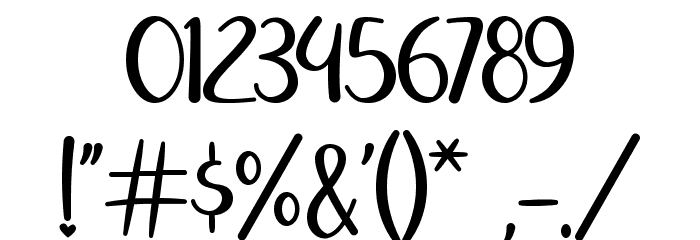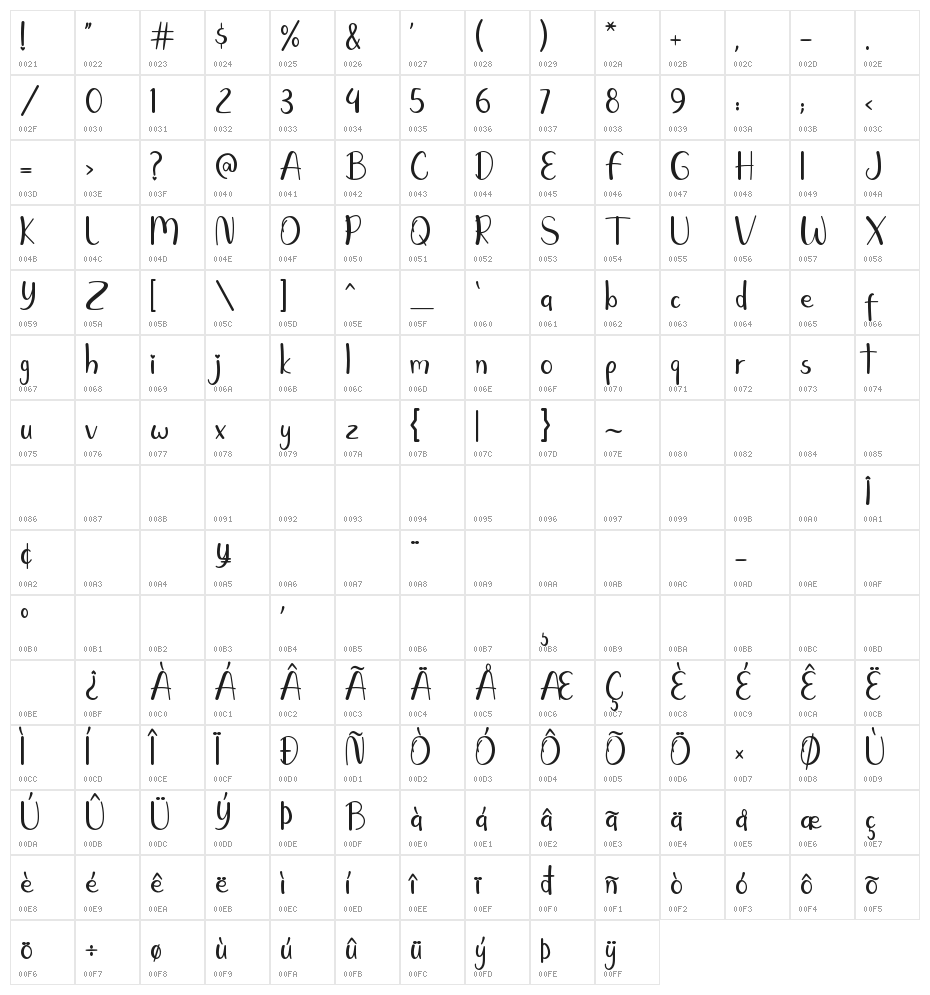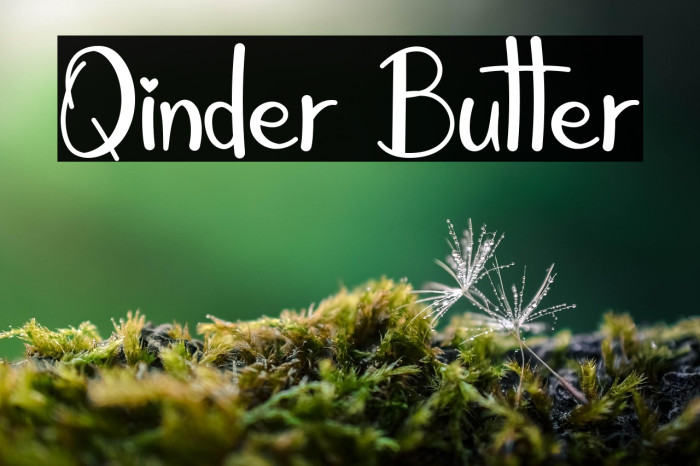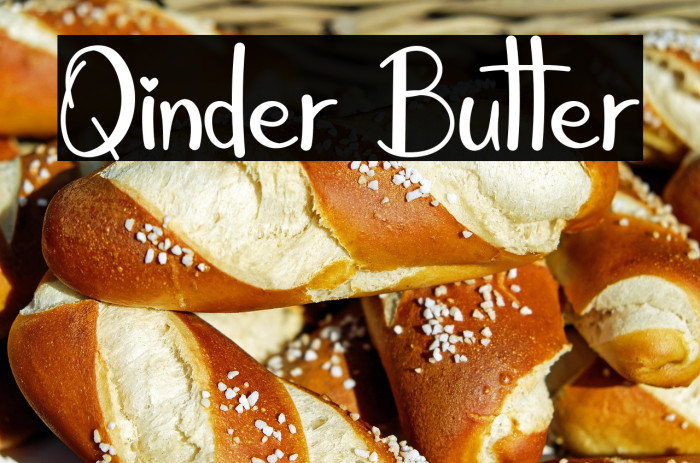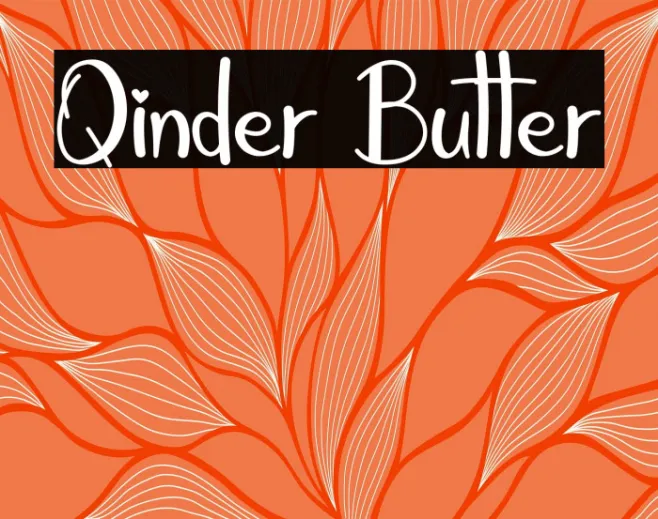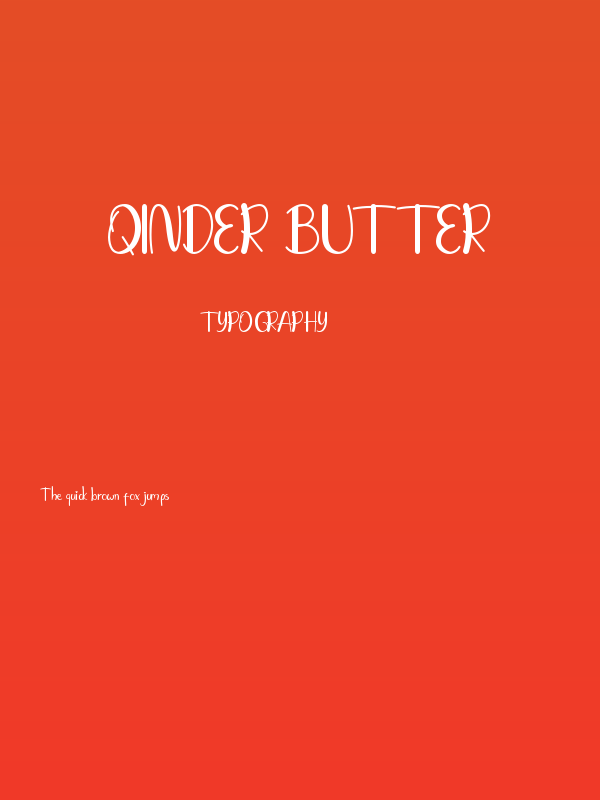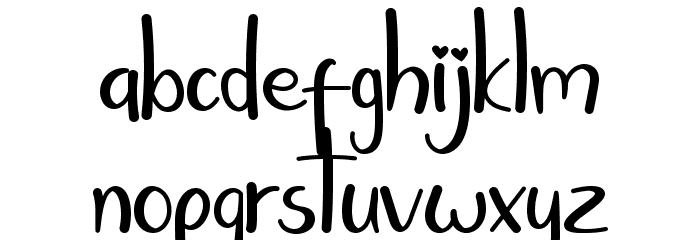
Qinder Butter Font
Qinder Butter Description
This font features a playful and whimsical style with a handwritten appearance. The letters are characterized by their smooth, flowing curves and slightly irregular shapes, giving them a casual and friendly look. The uppercase letters are tall and narrow, while the lowercase letters have a more rounded and open form. The numbers and special characters maintain the same playful aesthetic, making the font versatile for various creative projects. The overall design is consistent, with a medium stroke weight that provides good readability while retaining its unique charm.